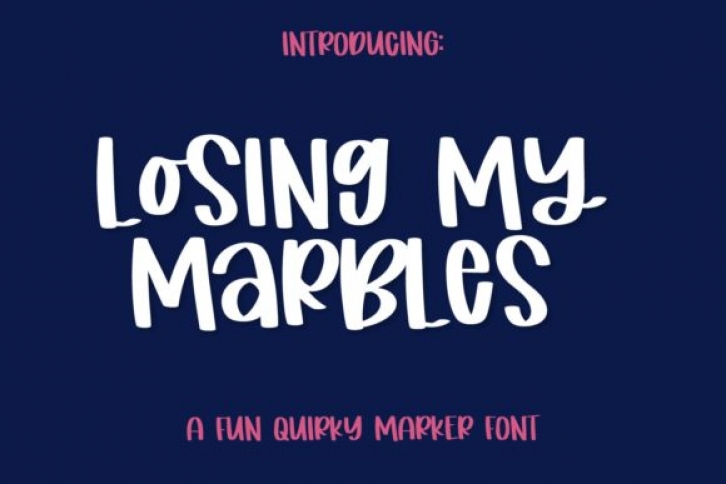
Losing My Marbles results out of a stunning pairing of a brush pen and pencil that makes it look incredibly endearing and authentic. Use this gorgeous and unique handwritten font to bring any DIY project to life!